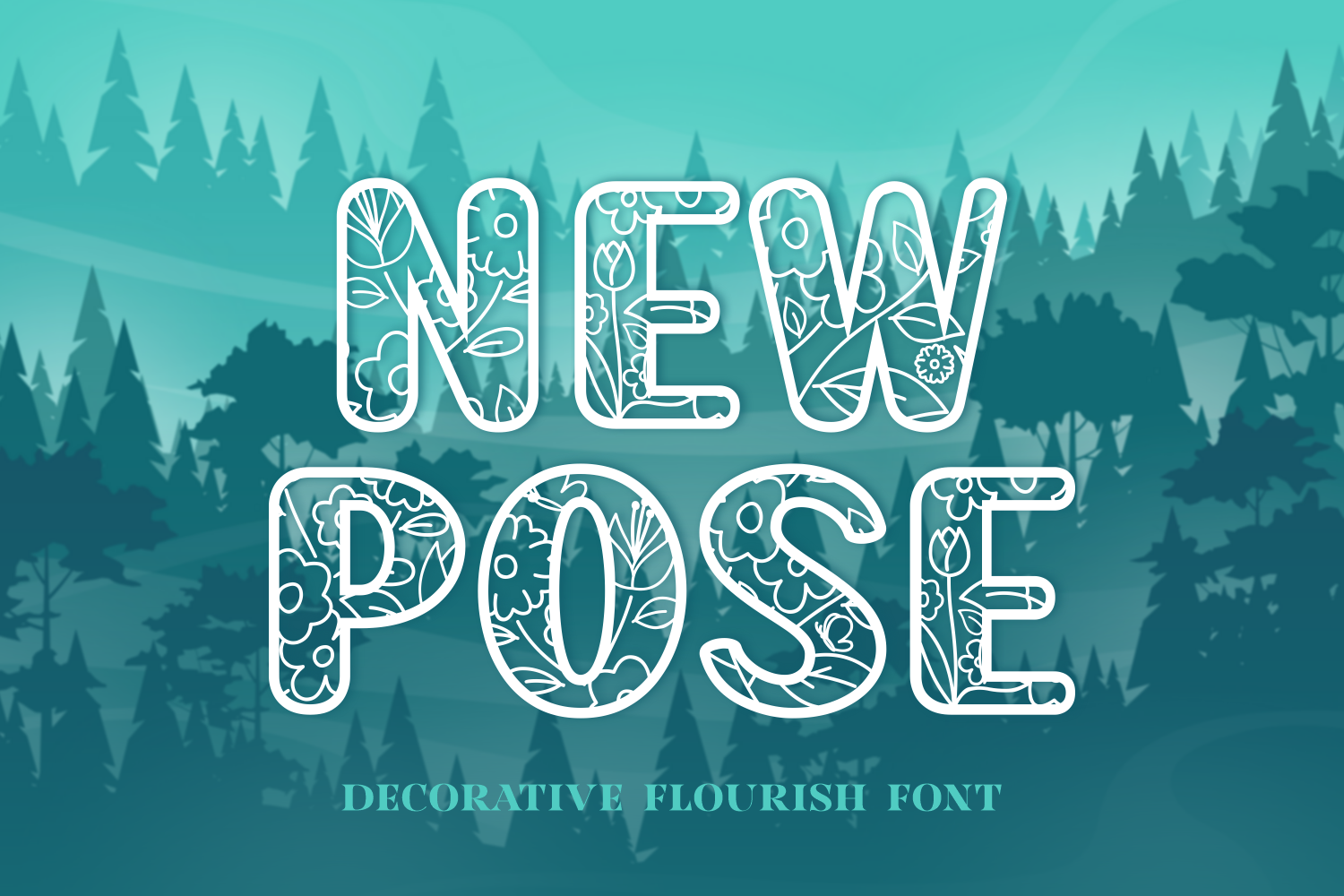
New Pose is a flowery decorative font. No matter the topic, this font will be an incredible asset to your fonts’ library, as it has the potential to elevate any creation.
Now this is a great looking font – it has wonderful potential to be used for other things like personalized ephemera for junk and other journals. I think this font would be great for slow stitching as well – just enlarge it, cut the main parts out and use as a template on lightweight felt or fabrics and go nuts with colorful yarns and stitches to make unique items to enhance and increase the value of your handmade books and ephemera! I think I’ll try my ideas myself! lol.